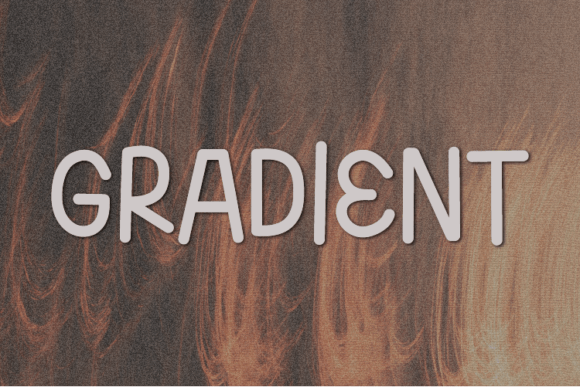
Dive into the wondrous world of Gradient, a breathtaking handwritten font that will ignite your creativity and elevate your designs to new heights. Crafted with meticulous care by the talented Hanna Bie, Gradient embodies the essence of effortless beauty and authentic charm.
With its natural and casual strokes, Gradient effortlessly captures the warmth and spontaneity of handwritten notes. Whether you're crafting enchanting Instagram highlights, captivating social media posts, or designing heartfelt invitations, Gradient's versatility knows no bounds.
Step into a realm of endless possibilities with Gradient. Its fluid lines dance across the page, evoking a sense of whimsy and wonder. Adorn your digital creations with a touch of magic, adding a personal and captivating element to every project.
Embrace the allure of Gradient today and unleash the boundless potential of your imagination. Let this extraordinary font guide your creative journey, transforming your designs into mesmerizing works of art.